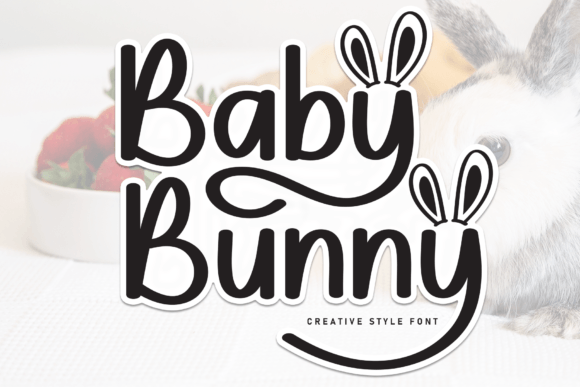
Meet the Font that Captivates: Baby Bunny Font
As a designer, you’ve probably experienced that moment when you come across a font that just clicks. The one that makes your project pop, and you can’t imagine using anything else. For me, that moment happened when I stumbled upon the Baby Bunny Font. Its elegant, handwritten style has a way of adding sophistication to any design, making it perfect for high-end invitations, personal branding, and stylish editorial work.
The Baby Bunny Font is a modern masterpiece that combines refined charm with a touch of personality. Its flowing strokes and intricate character make it a valuable asset for designers looking to elevate their projects. Whether you’re working on a luxury wedding invitation or a chic lifestyle magazine, this font is sure to add a touch of warmth and elegance to your design.
Baby Bunny Font Key Features
- Font Style: Cursive, Handwritten
- Unique Characteristics: Whimsical, playful feel with rounded edges and gentle curves, perfect for children’s books, nursery decor, and other fun applications
Baby Bunny Font Review
I recently had the chance to work with the Baby Bunny Font and I must say it’s a unique addition to any project. Here are my honest thoughts on what works well and what doesn’t.
- Whimsical Touch**: The Baby Bunny Font is perfect for projects that require a playful and childlike feel. It adds a whimsical touch that can instantly capture the attention of your audience.
- High-Quality**: The font is well-designed, with crisp lines and clear letterforms. This ensures that your text will be legible and easy to read, even at smaller font sizes.
- Customization Options**: The font offers a range of customization options, including different sizes, colors, and effects. This allows you to tailor the font to your specific project needs.
- Limited Font Styles**: While the Baby Bunny Font is well-designed, it only offers a limited range of font styles. This may limit its versatility and make it less suitable for projects that require a wide range of font styles.
- May Not Be Suitable for Formal Projects**: The font’s playful and childlike feel may not be suitable for formal or professional projects. It’s best used for projects that require a more lighthearted or whimsical tone.
The Baby Bunny Font is a unique and well-designed font that can add a playful touch to any project. While it has its limitations, it’s perfect for projects that require a whimsical and childlike feel. With its high-quality design and customization options, it’s definitely worth considering for your next project.
Tips for Getting the Most Out of Baby Bunny Font
For best results, use Baby Bunny Font in conjunction with playful, whimsical designs. Avoid using it for formal or professional projects. Experiment with different font sizes, colors, and styles to create visually appealing designs.
Baby Bunny Font is ideal for:
- Infant and toddler product branding
- Whimsical greeting cards and gift tags
- Playful social media graphics and ads
Alternatives to Baby Bunny Font
Great Vibes Font is a modern script font that is perfect for creating a whimsical and playful atmosphere. It is ideal for use in designs that require a sense of fun and adventure, such as children’s books, party invitations, and social media graphics. Compared to Baby Bunny Font, Great Vibes Font has a more sophisticated and elegant feel, making it suitable for a wider range of designs.
Alex Brush Font is a beautiful and elegant script font that is reminiscent of handwriting. It is perfect for use in designs that require a sense of warmth and personality, such as wedding invitations, greeting cards, and personal branding. Compared to Baby Bunny Font, Alex Brush Font has a more refined and sophisticated feel, making it suitable for more formal designs.
Q: What is the recommended font size for the Baby Bunny Font?
The recommended font size for the Baby Bunny Font is between 12 and 24 points, depending on the intended use and design context. For body text, a font size of 14-16 points is generally recommended. For headings and titles, a font size of 18-24 points can be used for maximum impact.